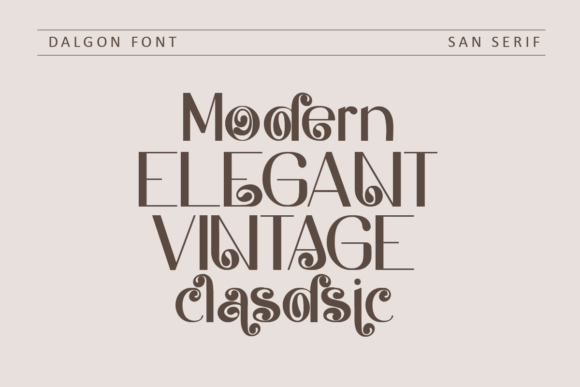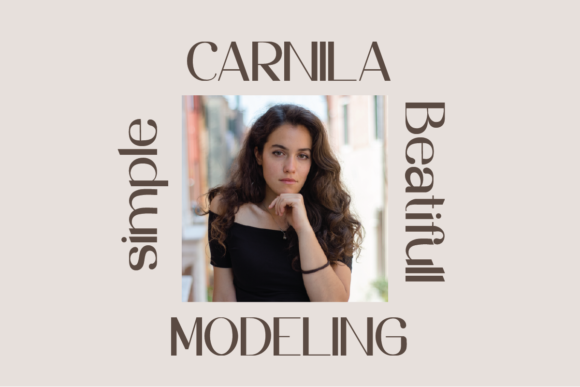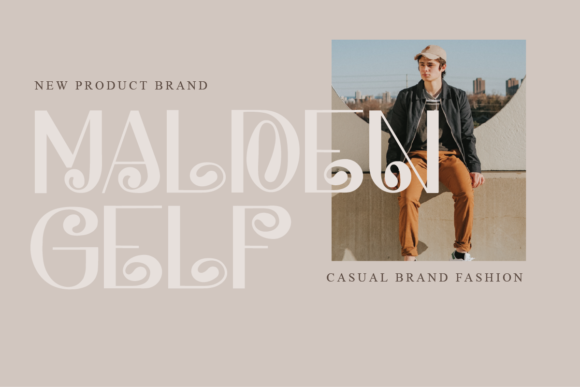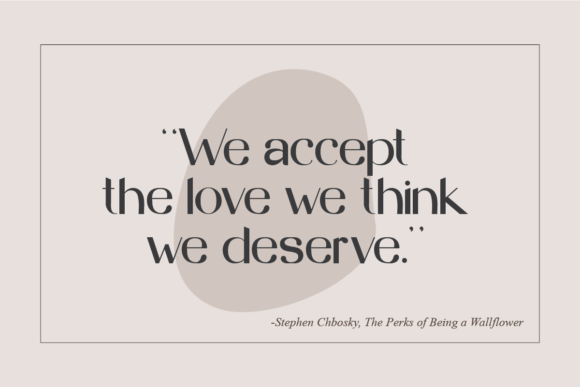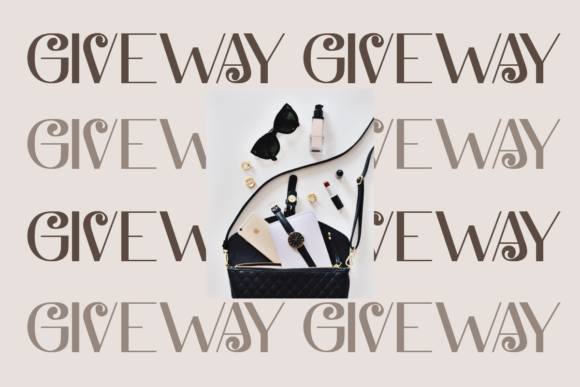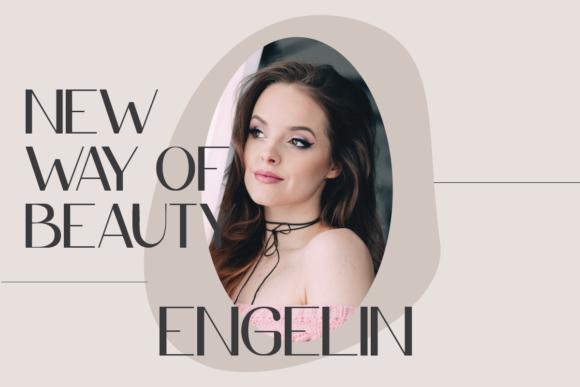
Dalgon Font: Elevate Your Designs with a Modern Sans Serif Typeface
In the world of typography, a good font can make all the difference in creating visually stunning designs. For designers and crafters looking for a unique and valuable typeface, Dalgon Font is an excellent choice. This modern sans serif font is specifically designed for projects that require a fresh and contemporary look. In this article, we’ll explore the features and benefits of Dalgon Font and how it can elevate your designs.
What is Dalgon Font?
Dalgon Font is a modern sans serif font created especially for projects that need unique and valuable typography. Its clean and minimalist design makes it perfect for a wide range of applications, including magazines, banners, stationery, branding, name tags, invitations, and more. The font’s sleek and contemporary look is sure to grab attention and leave a lasting impression.
Key Features of Dalgon Font
So, what sets Dalgon Font apart from other typefaces? Here are some of its key features:
- Modern Sans Serif Design: Dalgon Font boasts a clean and minimalist design, making it perfect for modern designs.
- Unique and Valuable Typography: Dalgon Font is designed to provide unique and valuable typography for your projects.
- Wide Range of Applications: Use Dalgon Font for magazines, banners, stationery, branding, name tags, invitations, and more.
Benefits of Using Dalgon Font
By using Dalgon Font in your designs, you can enjoy several benefits, including:
- Improved Readability: The font’s clean design ensures excellent readability, making it perfect for body text and headlines.
- Enhanced Visual Appeal: Dalgon Font’s modern sans serif design adds a touch of sophistication and elegance to your designs.
- Increased Versatility: The font’s wide range of applications makes it a versatile choice for various design projects.
In conclusion, Dalgon Font is an excellent choice for designers and crafters looking for a modern sans serif font that can elevate their designs. With its clean design, PUA encoding, and wide range of applications, Dalgon Font is a versatile and valuable typeface that can help you create stunning designs. Whether you’re working on a magazine, banner, or branding project, Dalgon Font is sure to impress.